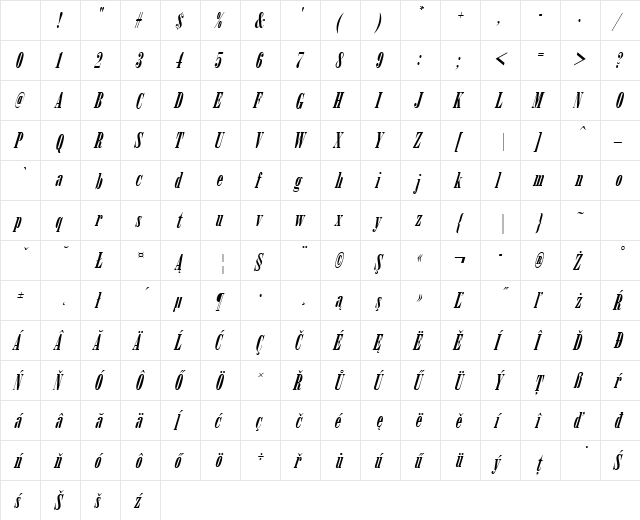
Complete ArsisDEEReg Italic glyph index. Displaying only characters natively supported by ArsisDEEReg Italic font.
ArsisDEEReg is a composed and adaptable typeface that performs quietly and consistently across a wide range of design contexts. The slanted form adds forward momentum and visual energy.